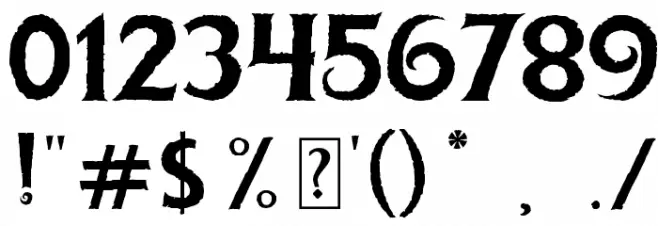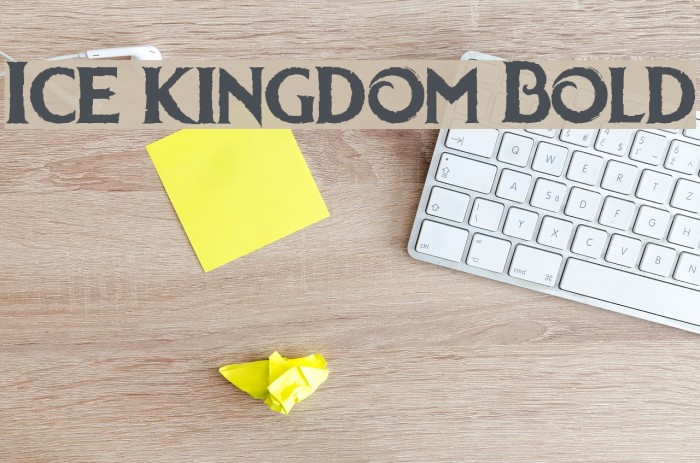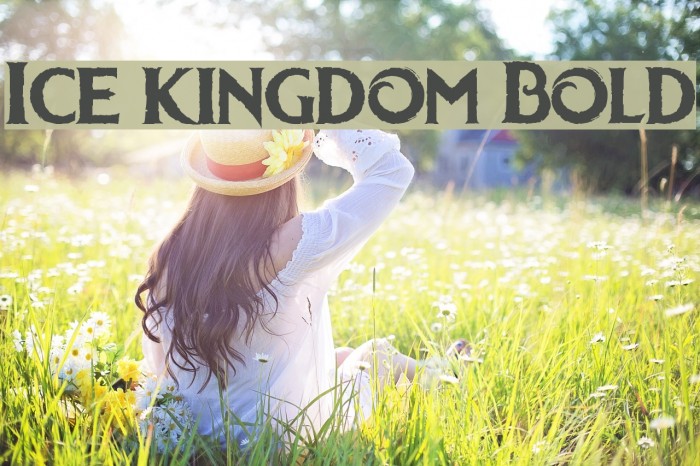
Ice kingdom Bold Font
Ice kingdom Bold Description
This font features a bold and dramatic style with sharp, angular edges and a slightly distressed appearance, reminiscent of ancient or medieval scripts. The uppercase letters are particularly striking, with unique flourishes and a sense of movement that suggests a dynamic energy. The lowercase letters maintain this boldness, offering a consistent look across the typeface. Numbers and special characters are equally bold, ensuring they stand out in any design. The overall aesthetic is both powerful and slightly whimsical, making it suitable for projects that require a touch of fantasy or historical flair.
| Proposed Projects | Ideal for fantasy-themed designs, book covers, movie posters, or any project needing a historical or dramatic touch. |